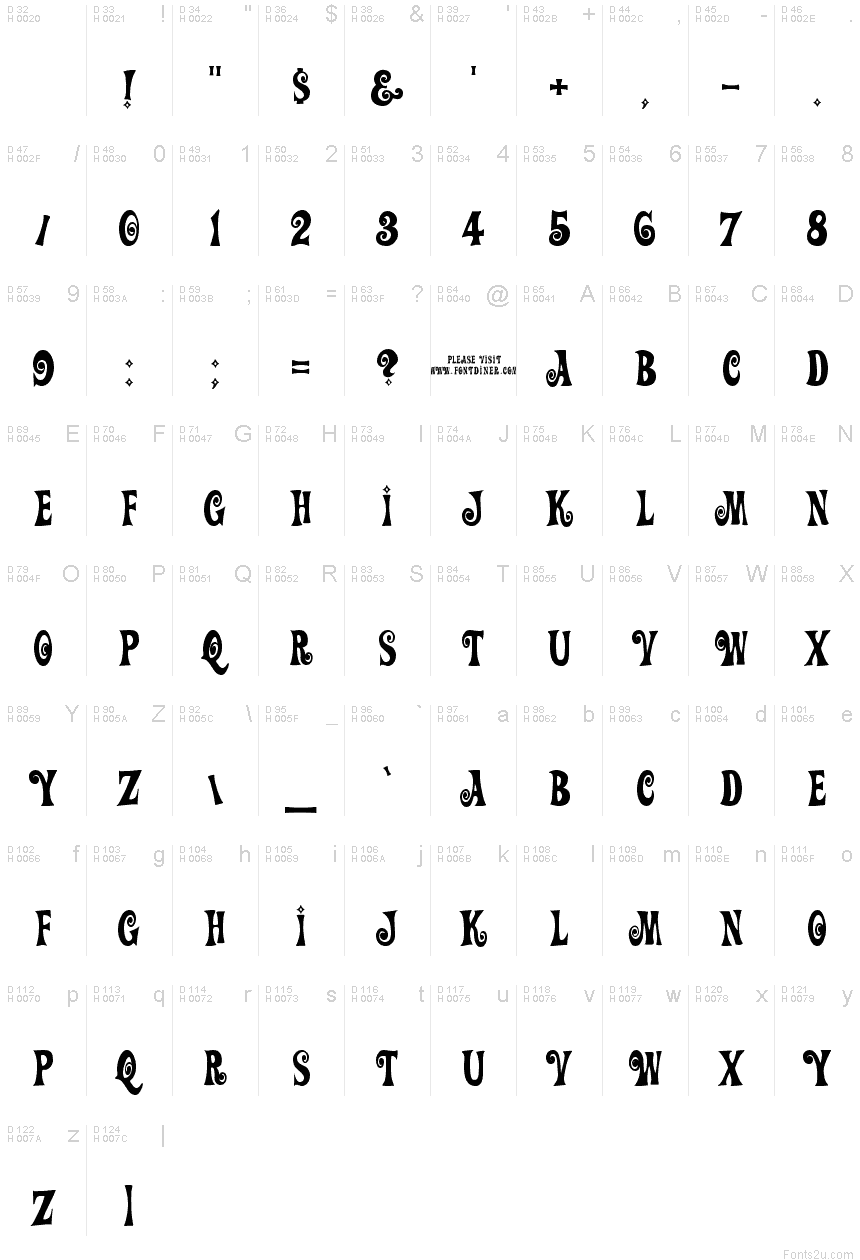
Action Is JL
Based on a title page for a photo scrapbook featuring pictures from the mid-60's TV show "Where The Action Is". This typeface was used in various projects in the 60's,but I did not have a full character set to work with. I modified letters to complete the font, and Brad Nelson fine-tuned them before scanning.